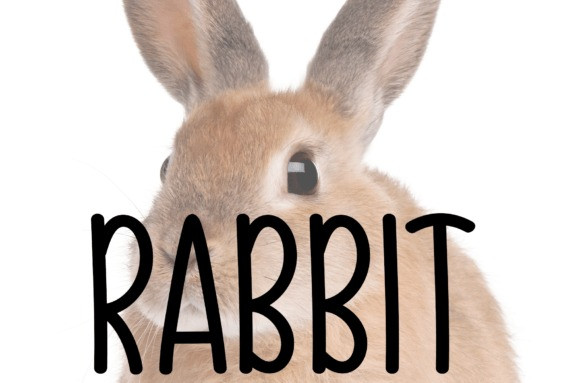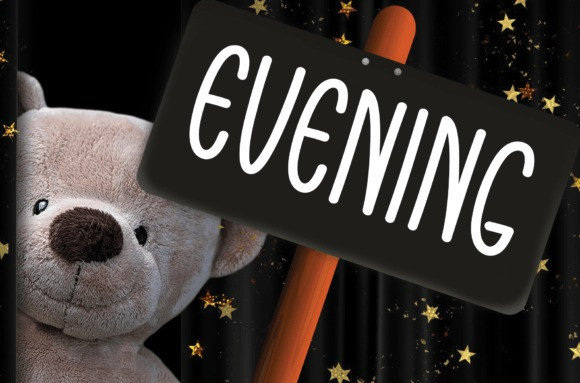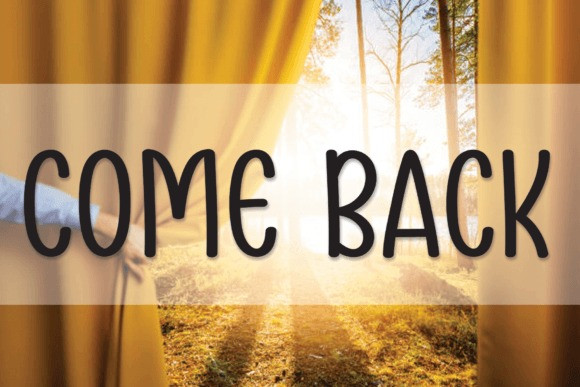
Come Back Font
Come Back Font is a sweet and friendly handwritten font. Fun and relaxed, this font is ideal for writing wedding invitations, cards, or any other design that might need a lovely touch!